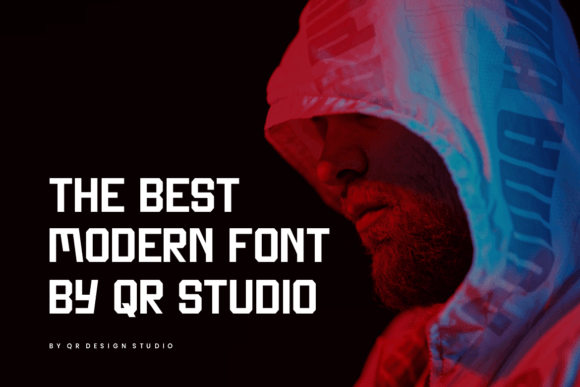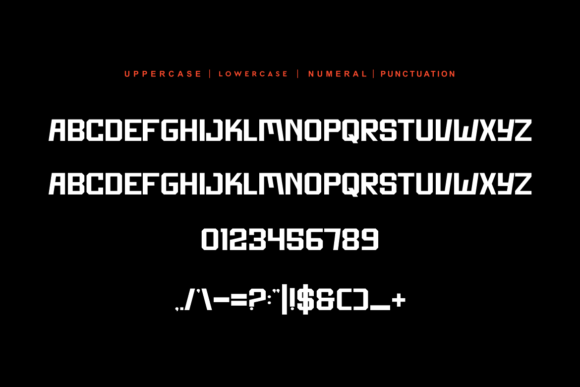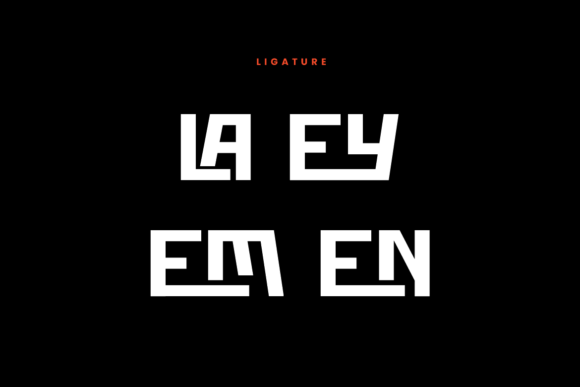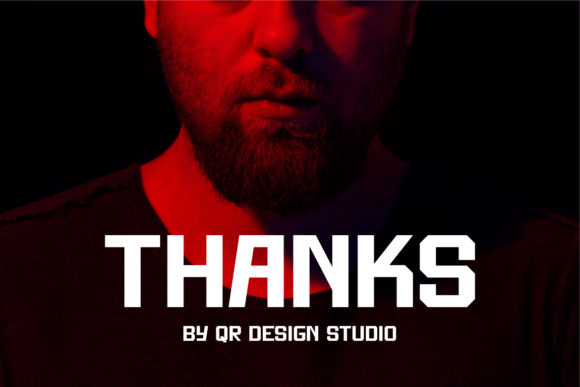
Unleash Your Creativity with the Askenov Font
Have you ever stared at a blank canvas, notebook, or computer screen, struggling to bring your vision to life? We’ve all been there. It’s that moment when the words won’t flow, the ideas won’t come, and the blank space seems to mock us. But what if we told you that there’s a secret to unlocking your creative potential?
Enter the Askenov Font, a masterfully designed sans serif font that’s about to revolutionize the way you express yourself. This incredible font is more than just a design tool – it’s a key to unlocking the full potential of your creative ideas. With the Askenov Font, you’ll be able to convey your message with precision, clarity, and style, making it an invaluable asset for designers, writers, and artists alike.
Askenov Font Key Features
- Unique Characteristics: The Askenov Font features a unique blend of modern and traditional design elements, with subtle nuances that add depth and character to text.
- Language Support: Supports a wide range of languages, including Latin, Cyrillic, and Greek alphabets, making it a versatile choice for global design projects.
Askenov Font Review
I recently had the chance to work with the Askenov Font, and I must say it’s a decent addition to any design library. ✨ One of the things that works well is its versatility. It’s a sans-serif font that comes in multiple weights, making it suitable for a wide range of design projects, from logos to body text.
- ✨ The font is highly legible, even at smaller font sizes.
- ✨ The various weights provide a nice range of options for designers to choose from.
- ✨ The font is relatively lightweight, which makes it easy to download and use.
However, there are some limitations that designers should be aware of. ⚠️ The font’s design feels a bit generic, and it may not stand out from other sans-serif fonts in crowded design spaces.
- ⚠️ The font lacks a distinct personality or flair that might make it more memorable.
- ⚠️ Some of the weights may not be as well-designed as others, which could impact the overall cohesion of a design project.
Overall, the Askenov Font is a solid choice for designers who need a reliable sans-serif font. While it may not be the most exciting or unique font out there, it gets the job done and provides a good balance of legibility and flexibility.
Tips for Getting the Most Out of Askenov Font
Use Askenov Font in conjunction with bold or italic styles to create emphasis and add visual interest.
Experiment with different font sizes and line spacing to create a visually appealing layout.
Combine Askenov Font with other design elements, such as images or shapes, to create a cohesive and engaging design.
Askenov Font is suitable for a variety of use cases, including:
Business card and resume design
Graphic design and digital art
Alternatives to Askenov Font for Designers
Montserrat is a modern sans-serif font that is perfect for digital design, particularly for headings and titles. It is clean, minimalist, and highly legible. Montserrat is ideal for creating a sleek and sophisticated look in websites, apps, and other digital products. Compared to Askenov Font, Montserrat has a more geometric feel and is more suitable for digital design.
Inter is a versatile sans-serif font that is designed for both digital and print use. It is highly legible and works well for body text, as well as headings and titles. Inter is a great alternative to Askenov Font for designers who want a clean and modern font that is suitable for a wide range of applications. Compared to Askenov Font, Inter has a more neutral feel and is more suitable for body text.